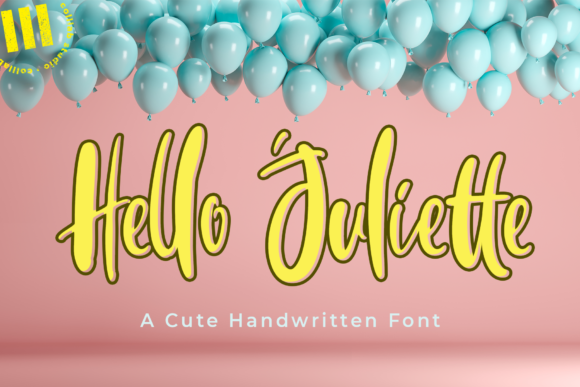
Have you ever been stuck on a design project, searching for that one element that brings it all together? You know, that perfect font that elevates your message, sets the tone, and leaves a lasting impression. For many designers, this moment of inspiration can be elusive, but it’s exactly what you’ll experience when you meet the Hello Juliette Font.
This exquisite handwritten font is more than just a stylish addition to your projects – it’s a game-changer. With its classy calligraphic influences and modern twist, Hello Juliette Font is the perfect blend of classic and contemporary. Whether you’re designing a wedding invitation, a branding package, or a social media campaign, this font is sure to bring your vision to life.
As a designer, you know the value of a well-chosen font. It’s the difference between a good design and a great one. With Hello Juliette Font, you’ll be able to take your projects to the next level and leave a lasting impression on your audience.
Hello Juliette Font Key Features
- Font Style: Script, Handwritten
- Size: 1,046 glyphs
- Resolution: Supports up to 2048×2048 DPI
- Language Support: Multilingual support with Latin, Greek, and Cyrillic scripts
- Unique Characteristics: Distinctive, elegant, and cursive style with a touch of vintage charm
Hello Juliette Font Review
Overall, I have mixed feelings about the Hello Juliette Font. Here’s a breakdown of what I think.
- The elegant script design makes it perfect for romantic and whimsical projects.
- The font is highly legible, even at smaller sizes.
- The variety of font weights and styles offers flexibility for different design applications.
- The font may not be suitable for formal or professional projects due to its playful and cursive nature.
- The characters may not be as detailed as some users might expect, which could be a drawback for those who want a more realistic font.
- The font may not be as easily readable in certain digital environments, such as on mobile devices or in low-resolution displays.
While the Hello Juliette Font has its limitations, it can be a great choice for the right project. Its elegant design and flexibility make it perfect for creative and artistic applications, such as wedding invitations, greeting cards, or children’s books.
Getting the Most Out of the Hello Juliette Font
To get the most out of the Hello Juliette Font, use it in conjunction with bold or italic text to create visual interest.
Use the font for headings or titles to create a unique and eye-catching look.
The Hello Juliette Font is perfect for:
1. Creating a whimsical or vintage-inspired design.
2. Adding a touch of elegance to a formal design.
3. Creating a unique and eye-catching title or heading.
Alternatives to Hello Juliette Font for Designers
1. Carolyna Pro Font
Carolyna Pro is a modern, elegant script font ideal for creating luxurious and sophisticated designs. It is perfect for use in branding, advertising, and editorial content. Carolyna Pro offers a more refined and polished look compared to Hello Juliette, making it suitable for high-end projects.
Comparison to Hello Juliette: Carolyna Pro has a more refined and polished look, while Hello Juliette has a more playful and whimsical feel. Carolyna Pro is ideal for projects that require a touch of luxury, whereas Hello Juliette is better suited for more casual designs.
Great Vibes is a beautiful, handwritten font perfect for adding a personal touch to designs. It is ideal for use in social media graphics, blog posts, and marketing materials. Great Vibes has a more casual and relaxed feel compared to Hello Juliette, making it suitable for projects that require a friendly and approachable tone.
Comparison to Hello Juliette: Great Vibes has a more casual and relaxed feel, while Hello Juliette has a more elegant and sophisticated look. Great Vibes is ideal for projects that require a friendly and approachable tone, whereas Hello Juliette is better suited for more formal designs.